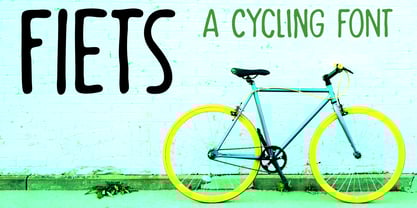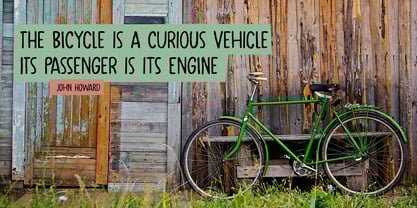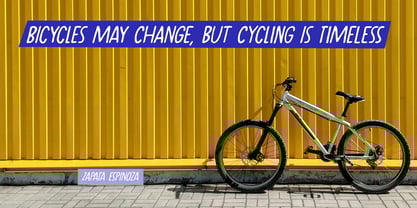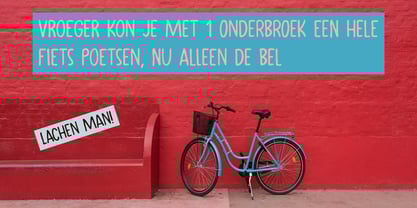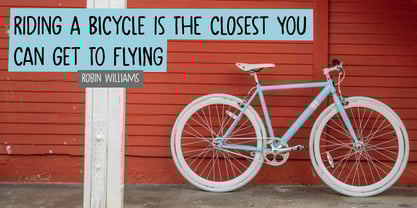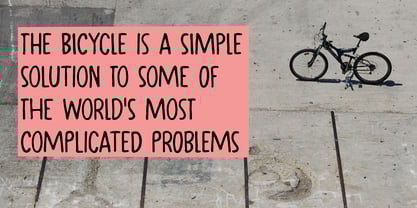
Fiets
by Hanoded
The Fiets Font Family was designed by David Kerkhoff and published by Hanoded. Fiets contains 2 styles and family package options.
Fiets is Dutch for bicycle. The origin of this word is unknown, but it has been part of the Dutch language since 1870. The Dutch love their bicycles and we ride them just about anywhere! My family and I are going on a bike-trip in the UK this summer, so I just had to name this font Fiets!
Fiets is a handmade font - I used a Japanese brush-pen and a ‘gaussian blur’ overhaul to create the glyphs.
Fiets comes with a set of auto-cycling alternates and extensive language support.
About Hanoded
Hanoded is run by Dutchman David Kerkhoff. His fonts are a mishmash of styles, as he just creates whatever pops into his head. You will find a lot of brush fonts in his collection, as his favourite tools are brushes and Chinese ink, with cartoon style fonts and script fonts complementing his repertoire. Aside from making fonts, David occasionally guides tours in far-flung places, renovates his '30's house and tries reasoning with his wife and (teenage) kids. Not an easy task!